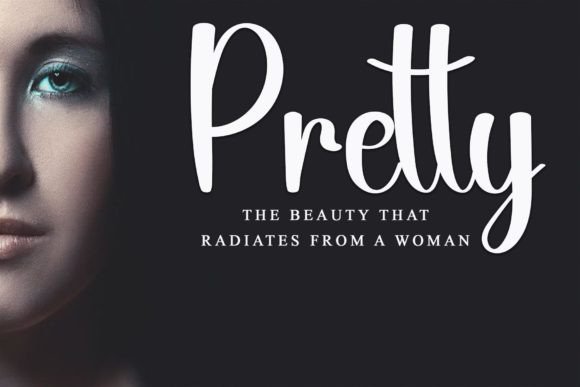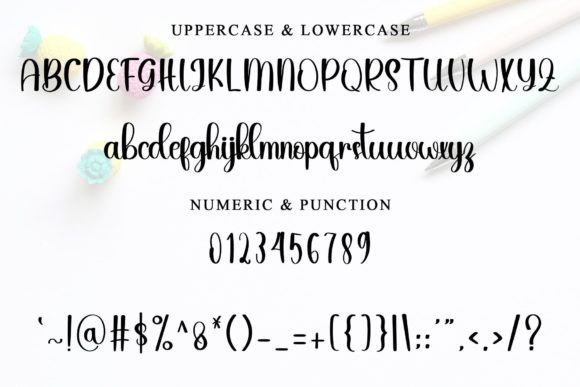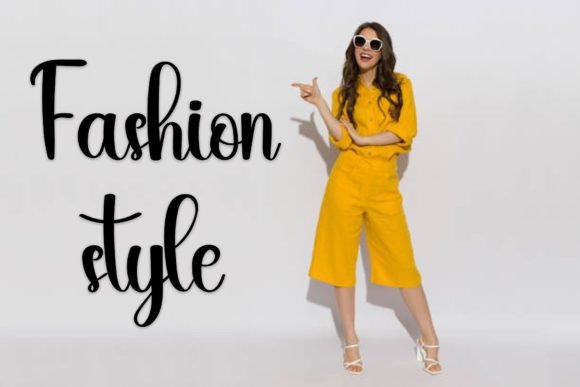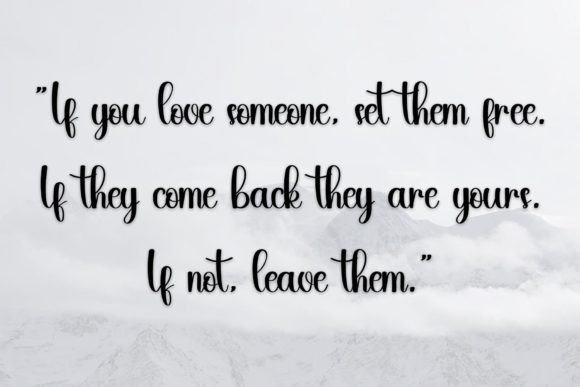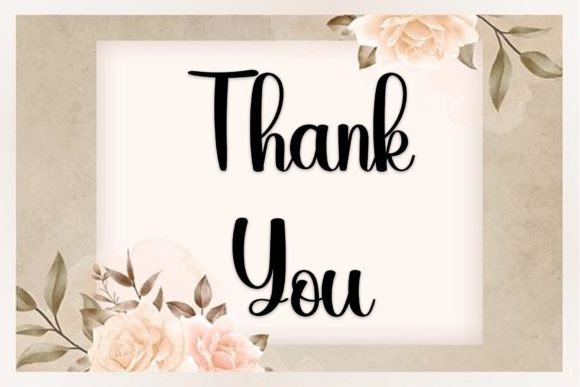
Introduction to Makeup Font
Remember the moment when you stumble upon the perfect design element for your creative project? The feeling of excitement and relief is unmatched. For designers, finding that one special element can be a game-changer. And, if you’re a fan of elegant and sophisticated designs, we have some great news for you. Say hello to the Makeup Font, a beautiful handwritten font that’s sure to captivate your audience.
This stunning font is described by an elegant touch, making it perfect for your next design project. With its distinct and timeless style, the Makeup Font is an invaluable resource for any designer looking to add a touch of sophistication to their work. Whether you’re working on a free download or a high-quality design, this font is sure to elevate your project to the next level.
Key Features of Makeup Font
- Features a unique and stylish design, perfect for makeup-related branding and advertising.
- Includes multiple font styles, including bold and italic variations.
Honest Review: Makeup Font
I recently had the chance to work with the Makeup Font, and I must say it’s been a great addition to my design toolkit. This free download has been a game-changer for my creative projects, especially when I need a high-quality font to make my designs pop.
- ✨ Great variety of fonts: The Makeup Font comes with a range of styles, from modern to elegant, making it perfect for a wide range of creative projects.
- ✨ High-quality design: The font is well-designed, with a focus on readability and aesthetic appeal.
- ✨ Transparent background: The font’s transparent background makes it easy to layer and customize, giving me more creative control over my designs.
- ⚠️ Limited font weights: While the font has a good range of styles, it’s limited in terms of font weights, which can make it less versatile for certain design projects.
- ⚠️ Not suitable for complex designs: The font’s simplicity can make it less suitable for complex, multi-layered designs.
Overall, I’m really impressed with the Makeup Font. It’s a great design resource that’s perfect for a wide range of creative projects. While it has some limitations, it’s definitely worth checking out for any designers looking for a high-quality, free font download.
Makeup Font
The Makeup Font is a free download and a high-quality design resource perfect for any creative project. This font is ideal for designers who want to add a touch of elegance and sophistication to their designs.
Tips for Getting the Most Out of Makeup Font
To get the most out of the Makeup Font, try the following:
- Combine the font with other design elements for a unique look.
- Experiment with different font sizes and colors to create contrast.
- Use the font in conjunction with a transparent background for a seamless design.
The Makeup Font is perfect for a variety of design projects, including:
- Beauty and fashion designs.
- Product labels and packaging.